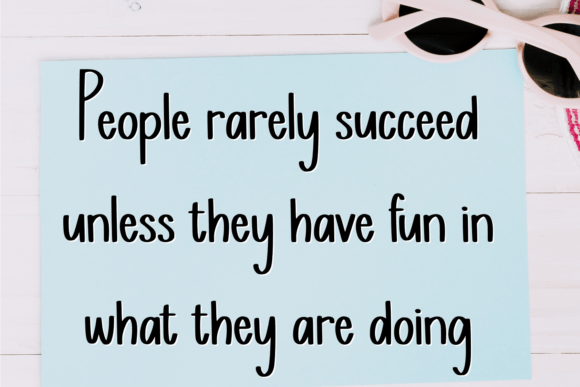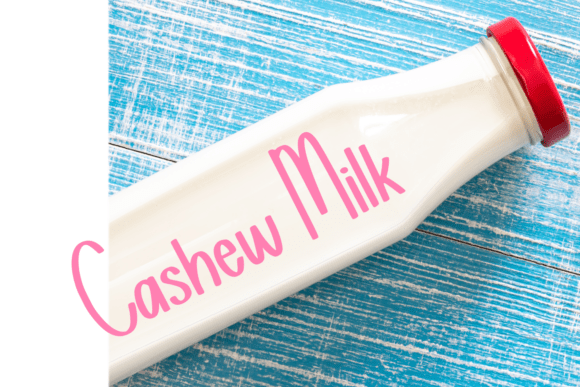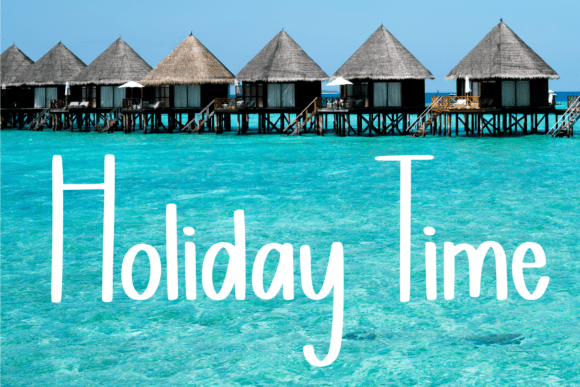
Introduction to Snorkeling Font
Do you remember that perfect moment when the words just flow effortlessly onto the page? The sound of the waves gently lapping at the shore, the warmth of the sun on your skin, and the freedom to let your thoughts wander – that’s the essence of creating with the Snorkeling Font. This charming handwritten font captures the serenity of a seaside escape and brings it to life on your paper.
Whether you’re working on a journal entry, crafting a wedding invitation, or designing a logo, the Snorkeling Font is an ideal design resource for any creative project. Its clean and approachable style makes it perfect for those seeking a touch of warmth without overwhelming their audience. With its high-quality, free download, you can incorporate this lovely font into your next project and add a personal touch that will make it truly special.
- Transparent background: This font offers a unique transparent background, making it perfect for creative projects that require a subtle and elegant look.
- High-quality design: This font features a high-quality design that is suitable for various creative projects, from graphic design to digital art.
- Perfect for creative projects: Snorkeling Font is an ideal choice for designers and artists working on creative projects that require a unique and stylish look.
Honest Review: Snorkeling Font
As a designer, I’m always on the lookout for high-quality design resources that can elevate my creative projects. Recently, I came across the Snorkeling Font, and I was excited to give it a try.
- ✨ The font is a beautiful, hand-drawn script that’s perfect for adding a touch of whimsy to my designs.
- ⚠️ The font is a bit limited in its character set, which can make it difficult to use for longer blocks of text.
Overall, I’m impressed with the Snorkeling Font’s unique style and high-quality design. While it may have some limitations, it’s a great addition to any designer’s toolkit, especially for creative projects that require a touch of personality.
The Snorkeling Font is a unique and creative design resource that can elevate your next project. With its transparent background and high-quality design, it’s perfect for a wide range of creative projects.
The Snorkeling Font is perfect for a wide range of creative projects, including:
- Beach-themed designs
- Water-inspired artwork
- Summer-themed invitations